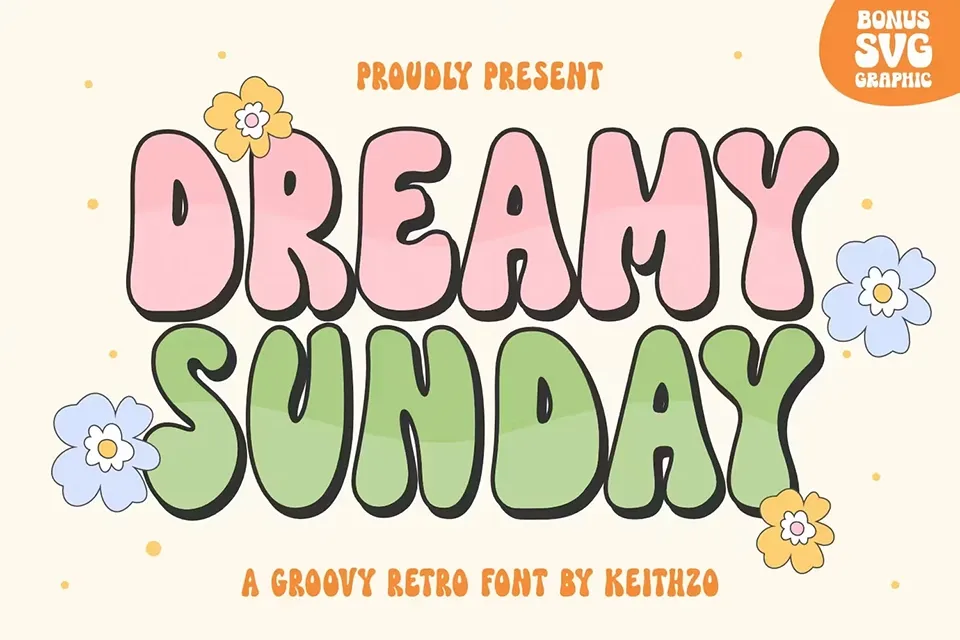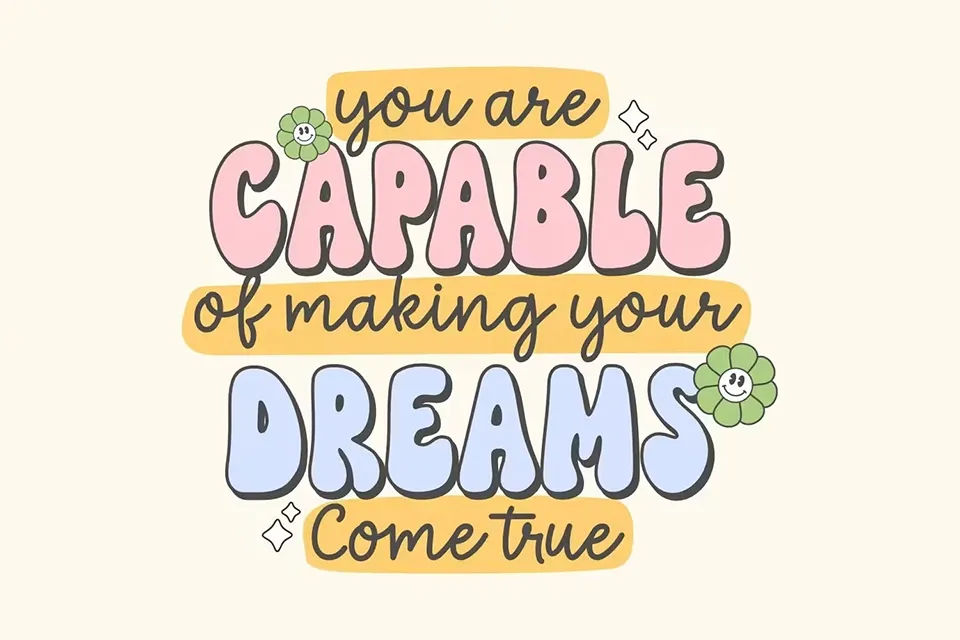
Dreamy Sunday Font
Dreamy Sunday Font is a playful and groovy retro typeface that captures the cheerful spirit of the 1970s. With its bold, rounded letterforms and soft, bubbly shapes, this font brings a sense of fun and nostalgia to any design. The pastel color palette and whimsical floral accents make it perfect for posters, invitations, children’s projects, and branding that needs a joyful, vintage touch. Dreamy Sunday stands out with its friendly, approachable style and easy readability, making every message feel lighthearted and memorable. It’s an ideal choice for creative projects that aim to spread happiness and positive vibes.